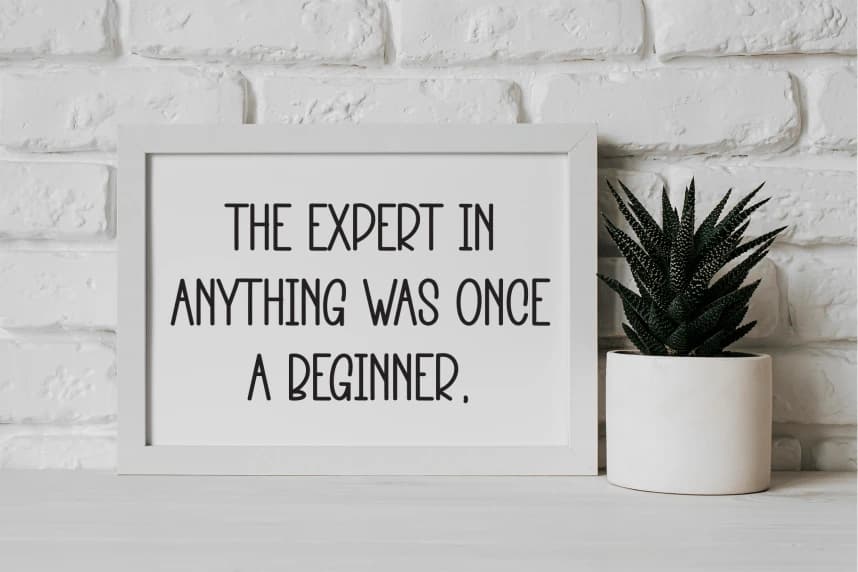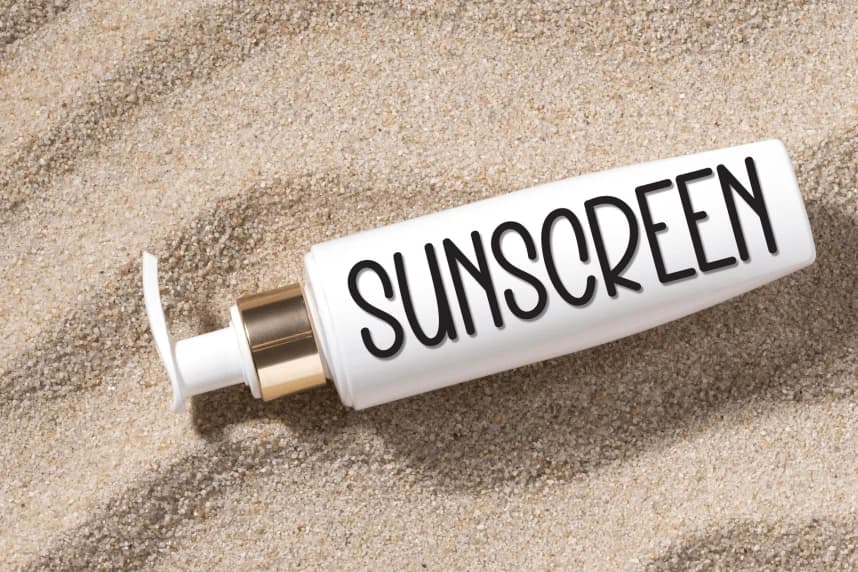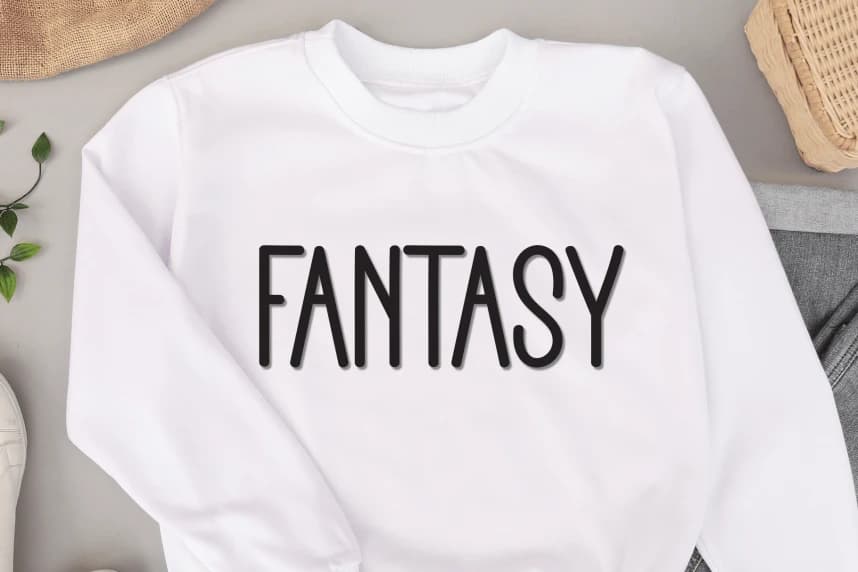
Rainbow Playful Handmade Font
Rainbow Playful Handmade Font is a sweet and friendly handwritten display font. Cute and fun, this font is ideal for writing wedding invitations, cards, or any other design that might need a playful touch!